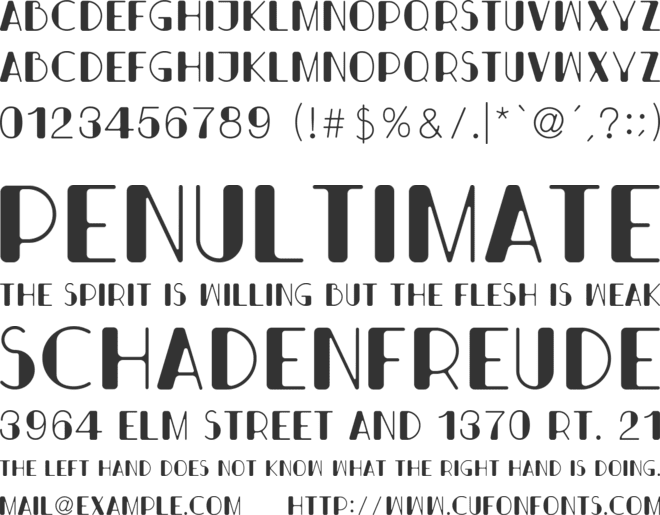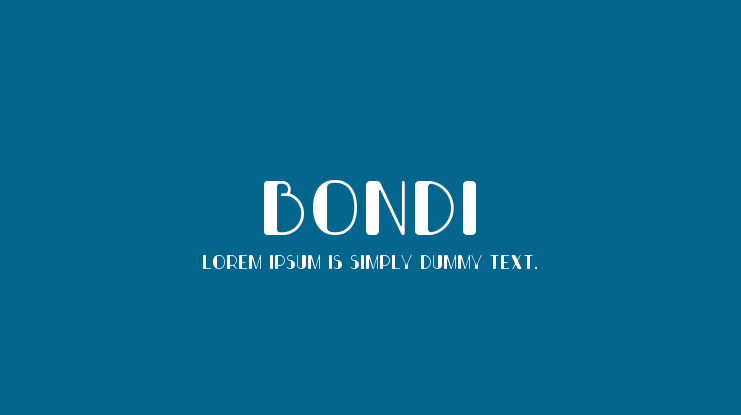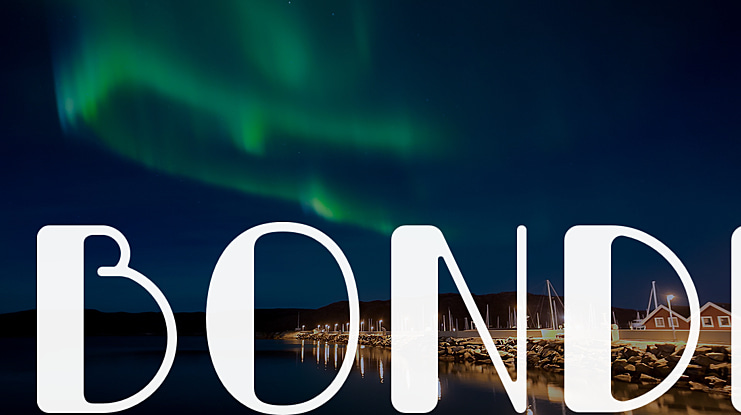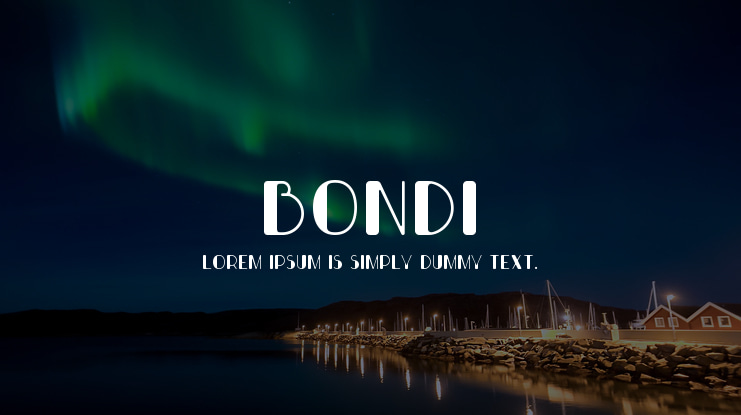
Bondi Font
Alejo Bergmann
Bondi is a display font designed by Alejo Bergmann. It contains all caps letters, numerals and symbols. This font perfectly suites for variety display purposes, including logotypes, badges and labels, headlines and banners, prints and much more.